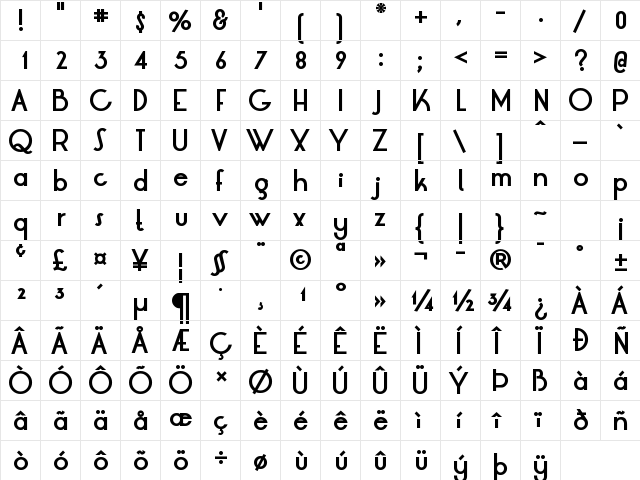
LRT Oksana Bold
Design Context for LRT Oksana Typeface
LRT Oksana is a composed and adaptable typeface that performs quietly and consistently across a wide range of design contexts. The heavy weight commands attention and anchors typographic hierarchies.